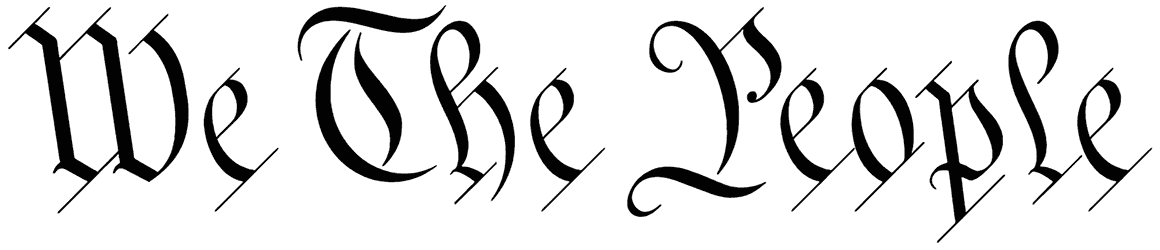
We The People Font
We The People font no longer needs to be introduced because at first glance, its historical and classical nature, which is inspired by the writings of ancient Rome, is obvious. This gothic font, with its old and somewhat illegible appearance, is very useful for logos, branding, Halloween design, and costumes. Handwritten lettering that reflects medieval Europe can give your designs a nostalgic and original feel.
This typeface is extrapolated from the ‘We the People’ calligraphy of the handwritten US Constitution Preamble which employed a style based on German Text and Square Text exemplars from George Bickham’s penmanship copy-books, the most celebrated being ‘The Universal Penman’ published in 1743.
The original Constitution document was transcribed onto parchment by Jacob Shallus, a Pennsylvania Assistant Clerk, over a weekend in 1787. Shallus’s biographer, Arthur Plotnik (‘The Man Behind the Quill’, 1987), notes that he was paid $30, a modest monthly wage at the time. He also suggests that the calligraphic headings, ‘We the People’ and ‘Article’, may have been inserted by Shallus’s 14 year old trainee son, Francis,
“The manner in which the ‘Article’ headings are squeezed into the space Shallus allowed for them suggests a second hand—and perhaps not a very experienced one.”
The unconventional backslant of the headings would seem to support this contention, and at the end of the document there is perhaps a novice’s inconsistency in the structure of the letter n between that used for ‘done’ and those used for ‘In Witness’. However, one has to admire the elegant swagger of the wavy t, h and l which the K-Type font extends to the b, f and k. Also, the simpler, Schwabacher-style W, an enlarged version of the lowercase w, is a little less flamboyant than the capital W from the German and Square texts in Bickham’s manuals.
For designers using OpenType-aware applications, the typeface includes some Alternates, including a Bickham-style W, the letters t, h and n with added flourishes, two simpler forms of the A, and a few roman numerals for numbering articles. Also some ornamental flourishes and a round middle dot/decimal point. Punctuation marks are drawn in square, calligraphic style, but an alternative round period/full stop, for use with currency and numerals, is available at the period centered position (though placed on the baseline), accessed by Shift Option 9 on a Mac, or Alt 0183 on Windows. The full phrase, ‘We the People’, has been placed at the trademark keystroke and can be accessed by Shift Option 2 on a Mac, or Alt 0153 on Windows.